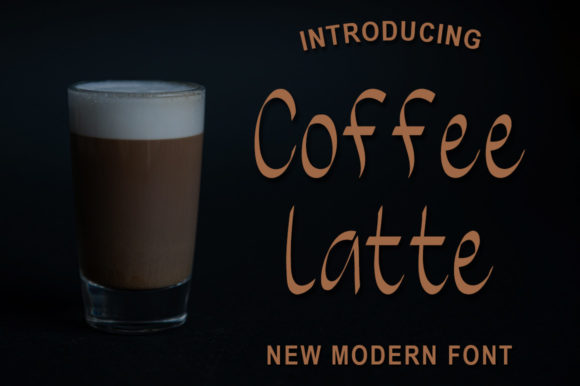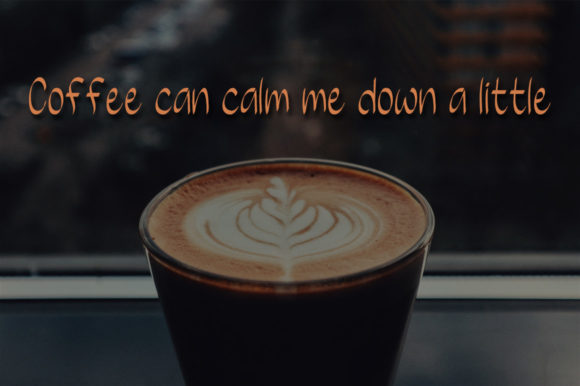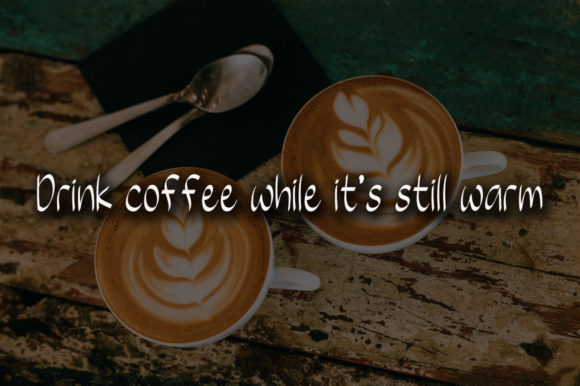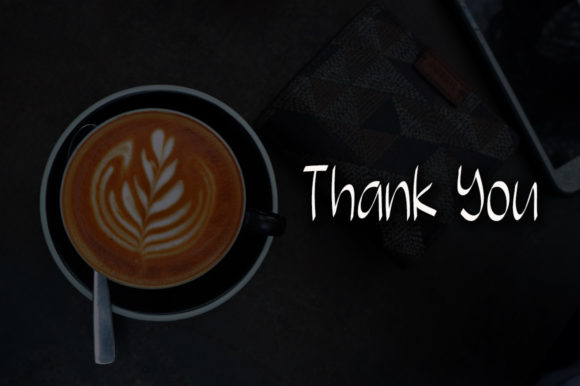
Coffee Latte Font
About Coffee Latte Font
Coffee latte is a lovely and fresh handwritten font. With elegant hand touches and scratches, this font is perfect for designing invitations, writing letters, and many other needs!